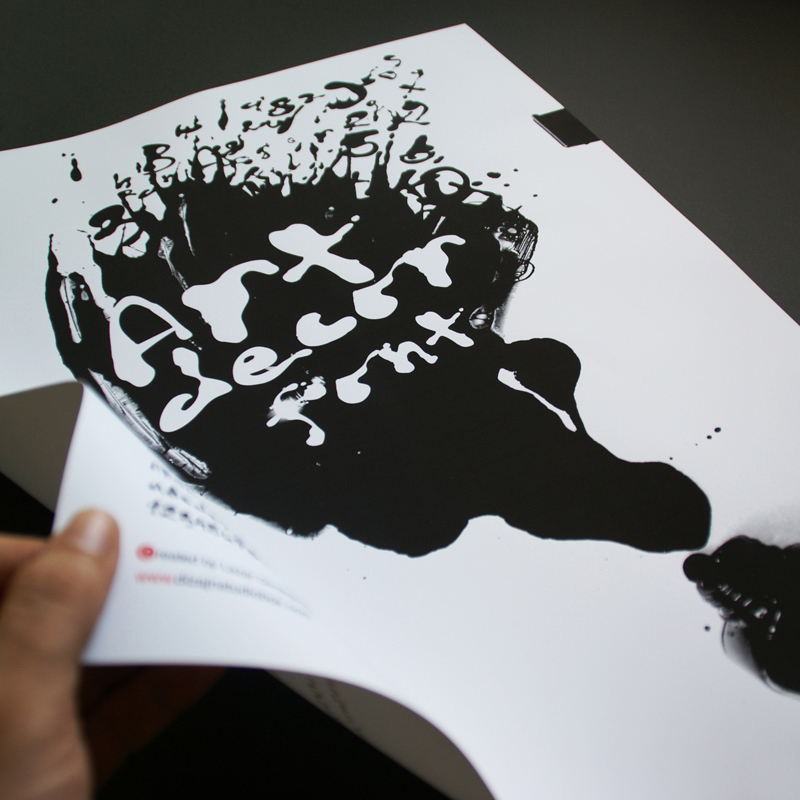
Artdecor by Lazar Dimitrijevic is a free graffiti font with swollen strokes and the unruly shape of quickly improvised lettering. Its letters lurch between tall, narrow forms and broad, rounded masses, with pinched joins, uneven edges, scattered dot-like marks, and abrupt changes in stroke width.
Rooted in street-art graphics, it fits music posters, skate merchandise, album packaging, and event flyers where raw handmade lettering can set the whole attitude. The font is most convincing on posters, where its wobbling silhouettes can function almost like painted artwork rather than neutral type.
This is a new version of the Art Decor font. The final version is named Oops and is available on MyFonts.